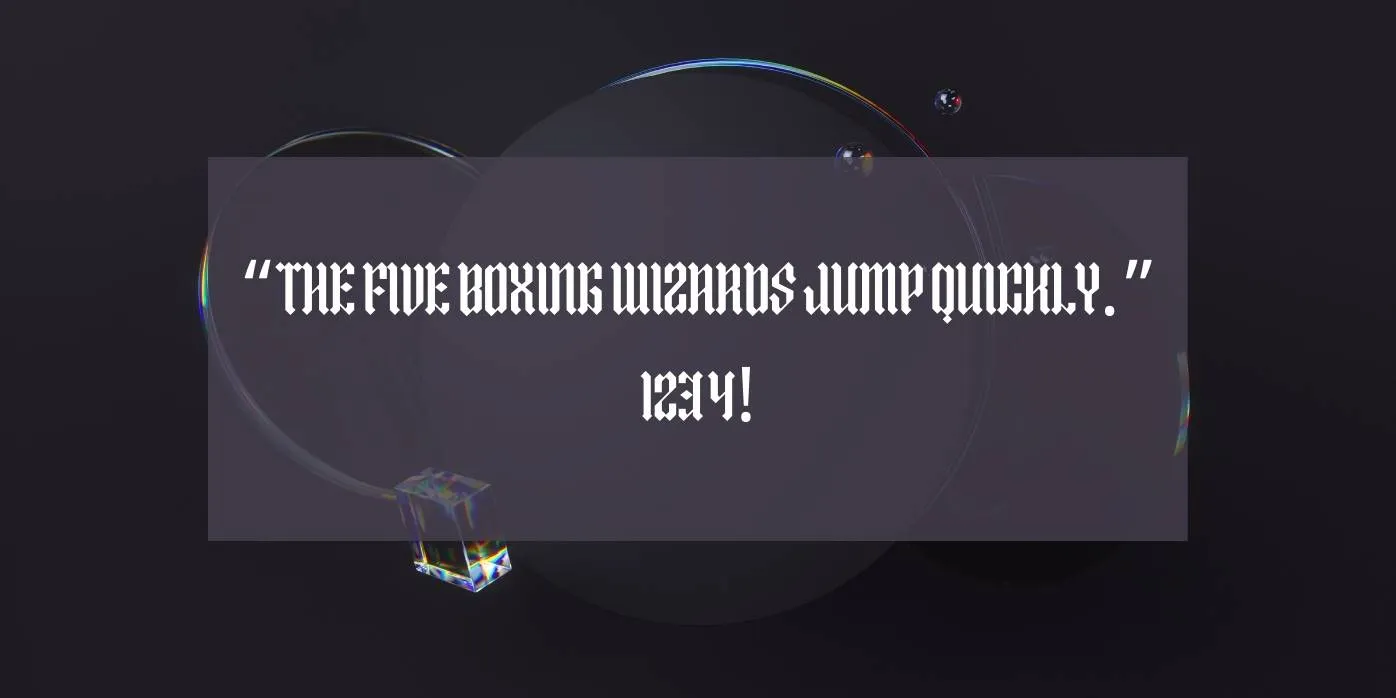
Panata Font
Panata Font belongs to the gothic font family. This staggering typeface was designed by AJ Dimarucot. It consists of regular, bold, and italic styles. And it supports a wide range of languages.
This typeface is best for CSS and SVG. The Panata Typeface was created to give a modern touch to vintage designs. It’s perfect for branding, logos, invitations, quotes, and other creative projects. This font is free for personal use.